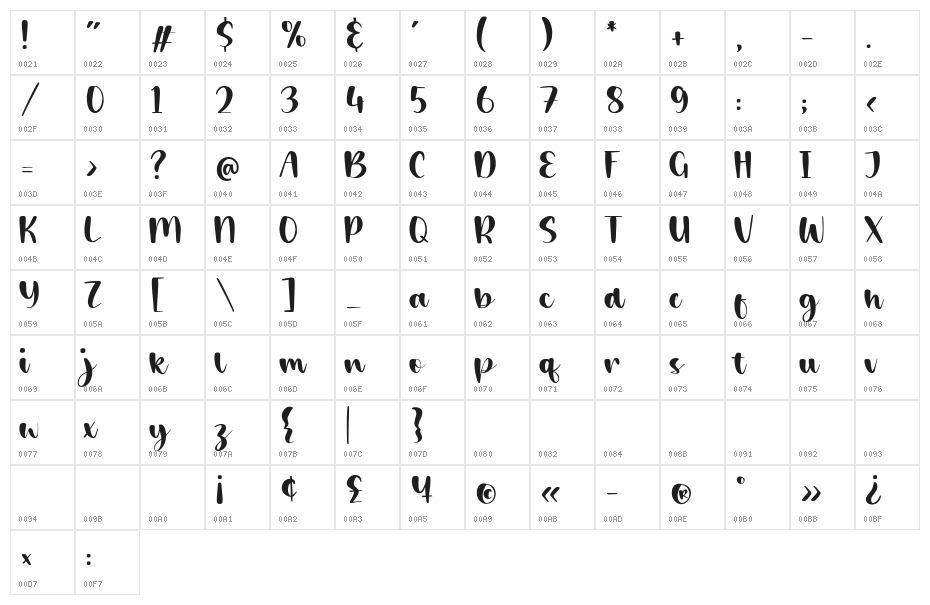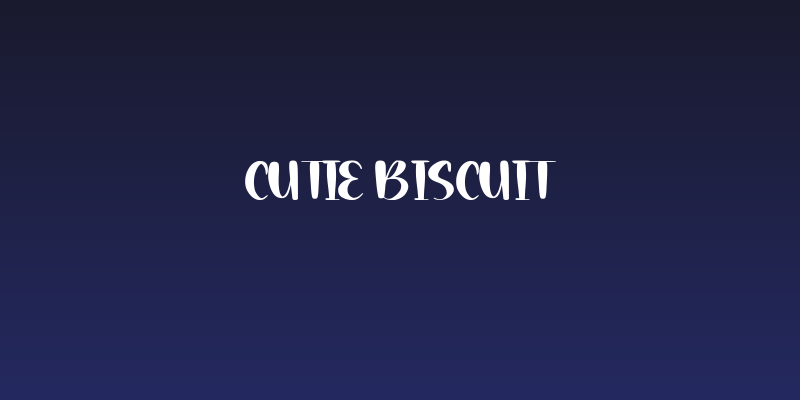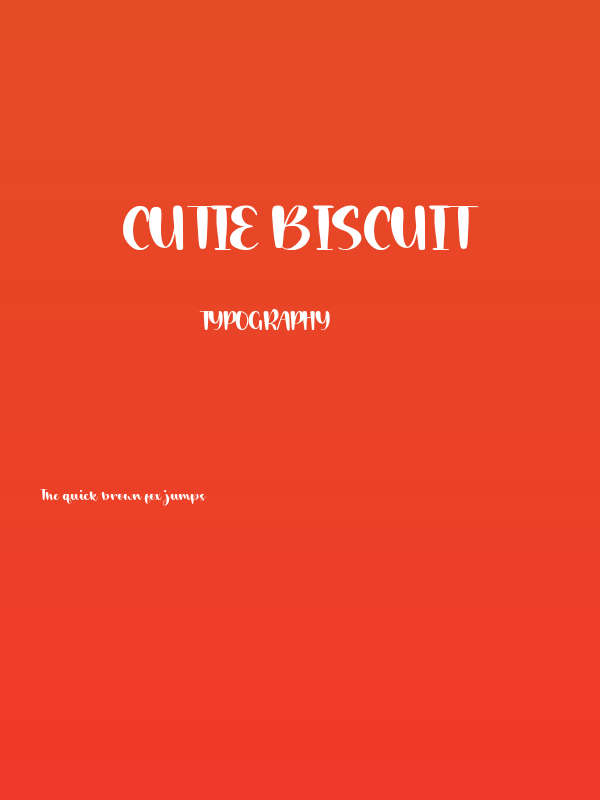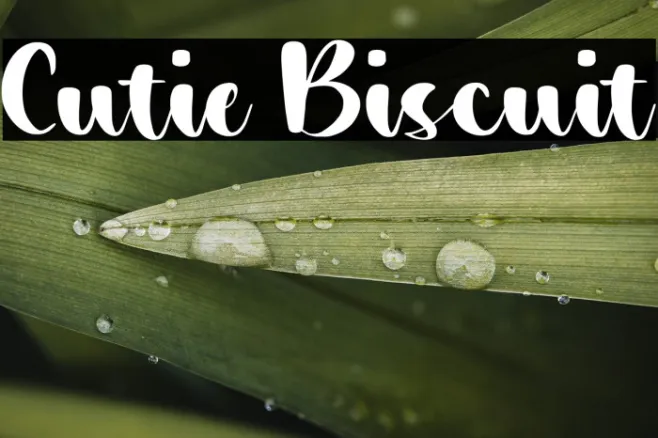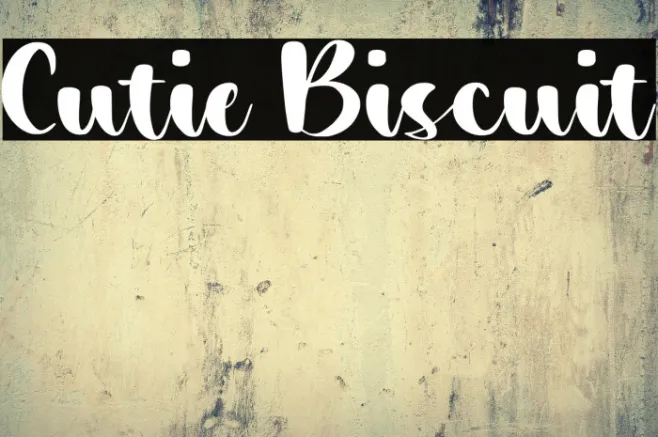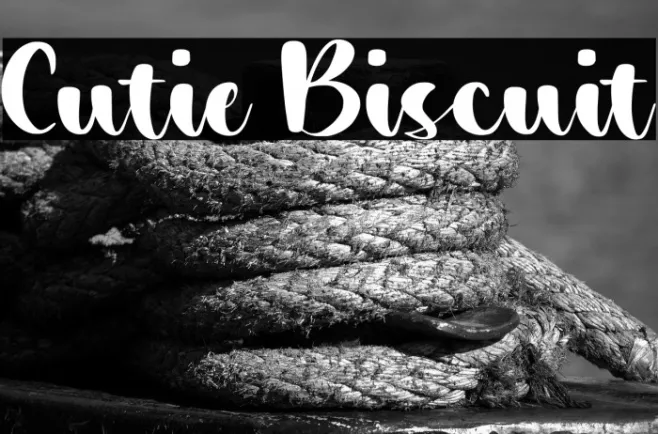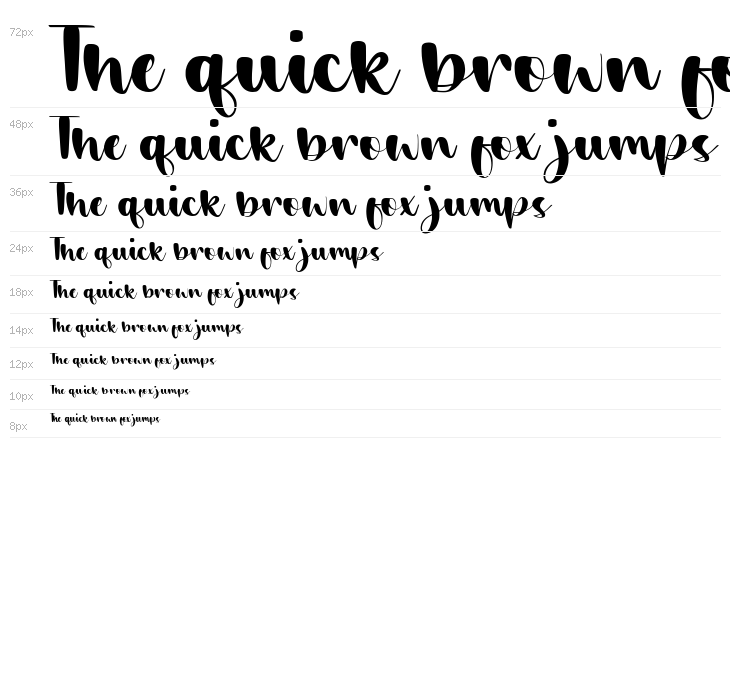
Cutie Biscuit Font
Cutie Biscuit Description
This playful and whimsical font features a handwritten style with bold, rounded strokes that convey a sense of fun and creativity. The characters are slightly slanted, adding a dynamic and lively feel. The uppercase letters are bold and prominent, while the lowercase letters maintain a consistent flow with smooth curves and loops. The numbers and special characters are designed to match the playful aesthetic, making them suitable for a variety of creative projects. The overall appearance is friendly and approachable, perfect for designs that aim to capture attention with a cheerful vibe.
| Proposed Projects | Ideal for children's book covers, playful branding, greeting cards, and social media graphics. |